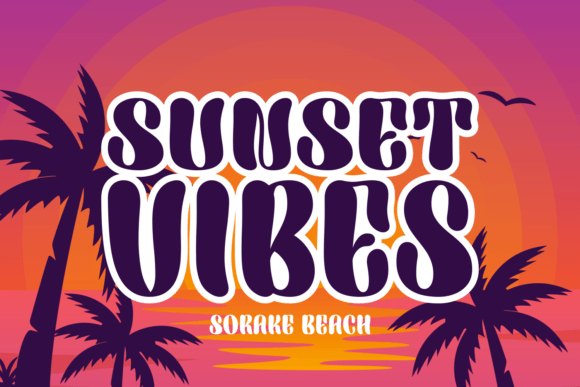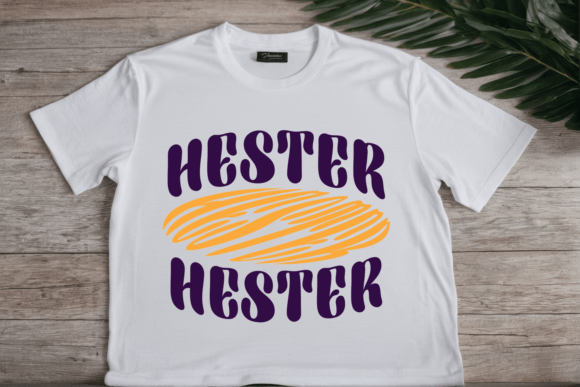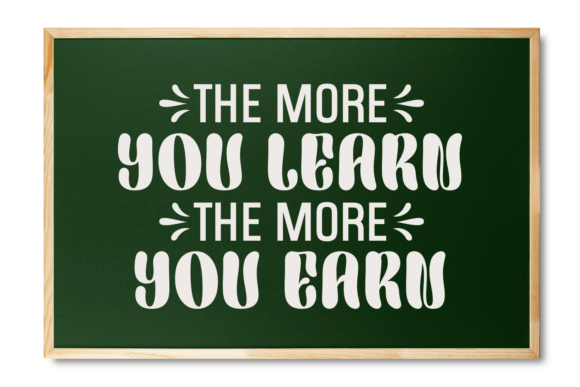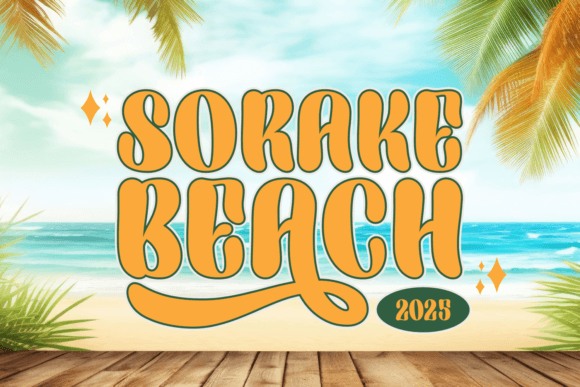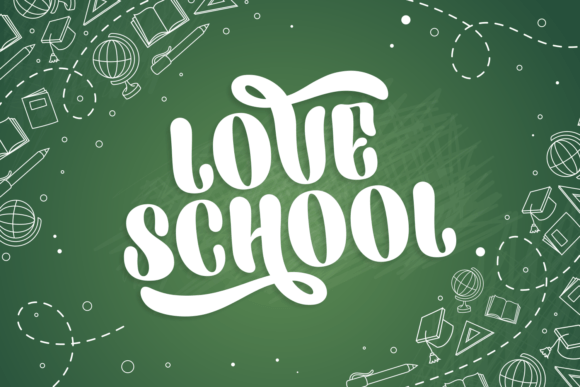
Summer Vibes in Every Letter
As a designer, there’s nothing quite like the thrill of discovering a new font that captures the essence of a particular season. For me, it was a sweltering summer afternoon spent brainstorming ideas for a children’s book, when I stumbled upon the perfect companion: Famous Summer Font. Its whimsical charm and playful flair immediately transported me to sun-kissed days of endless possibility.
Envision a font that embodies the warmth and carefree spirit of summer, with each letter bursting with personality. That’s exactly what you get with Famous Summer Font. This delightful fusion of cute and sweet is a game-changer for designers seeking to infuse their projects with a revitalizing zest. Whether you’re crafting a summer-themed campaign or simply want to add a touch of fun to your designs, this font is sure to make your projects bloom with vibrant spirit.
Famous Summer Font Key Features
- Size: The font family includes 4 weights: Light, Regular, Medium, and Bold, each with its unique characteristics and usage.
- Unique Characteristics: Famous Summer Font features a modern, elegant script with a relaxed feel, perfect for creating a summer vibe in your designs.
- Scalability: Famous Summer Font is designed to be highly scalable, making it suitable for use in various contexts, from small text to large headings.
Famous Summer Font Review
Overall, I think the Famous Summer Font is a solid choice for a casual, laid-back design project. It has a certain charm to it, and it’s easy to see why it’s become popular among designers.
- ✨ Friendly and approachable feel: The Famous Summer Font is perfect for projects that require a relaxed, casual tone.
- ✨ Wide character set: The font includes a wide range of characters, including international glyphs and punctuation marks.
- ✨ Versatile: The font can be used in a variety of settings, from blog posts to social media graphics.
- ⚠️ Limited legibility at small sizes: The font can become difficult to read at very small sizes, which may be a concern for designers working on mobile or web projects.
- ⚠️ Limited support for complex scripts: While the font includes a wide range of characters, it may not support complex scripts or languages.
The Famous Summer Font is a great choice for designers who want to add a touch of personality to their projects. While it may have some limitations, it’s a solid choice for casual design projects. With some careful consideration of font size and script support, it can be a valuable addition to any designer’s toolkit.
Use the Famous Summer Font for:
- Summer-themed designs, such as beach or pool party invitations.
- Food and beverage branding, such as ice cream or lemonade companies.
- Travel and tourism marketing, such as beach or resort promotions.
For best results, use the Famous Summer Font in conjunction with bright and airy colors, and plenty of whitespace to create a carefree and relaxed atmosphere.